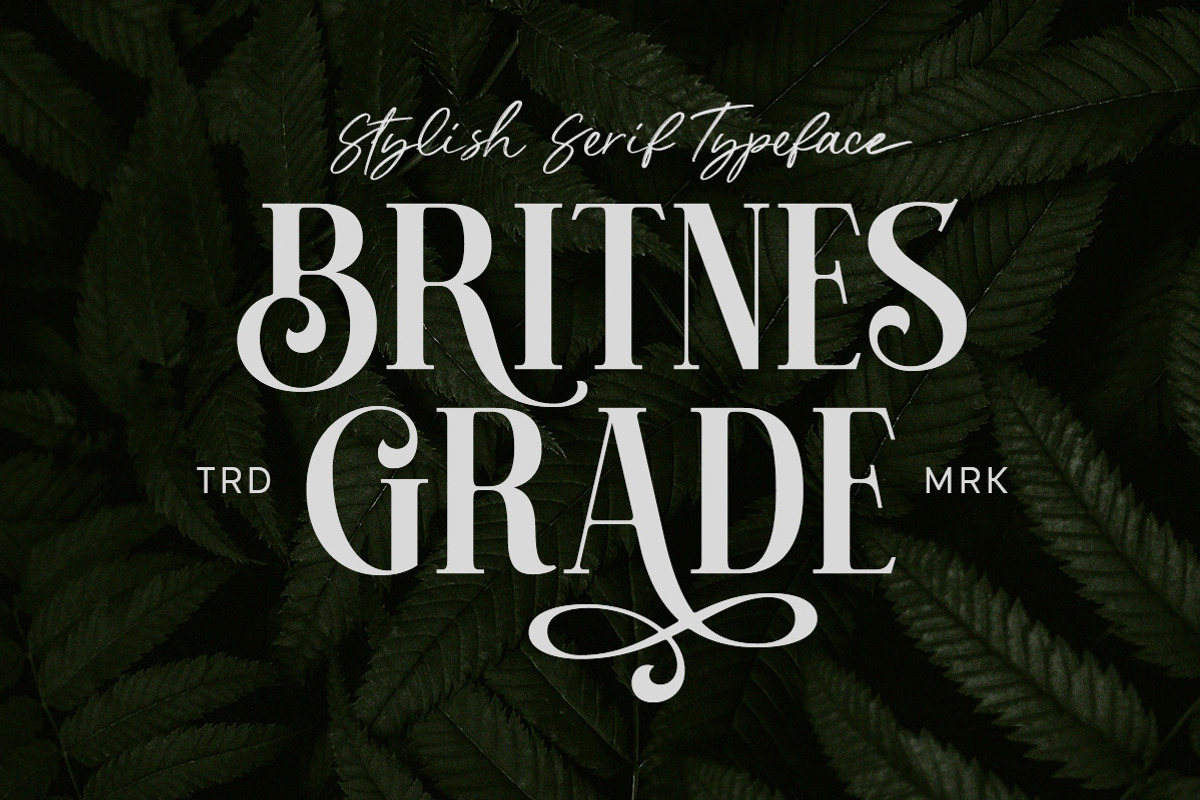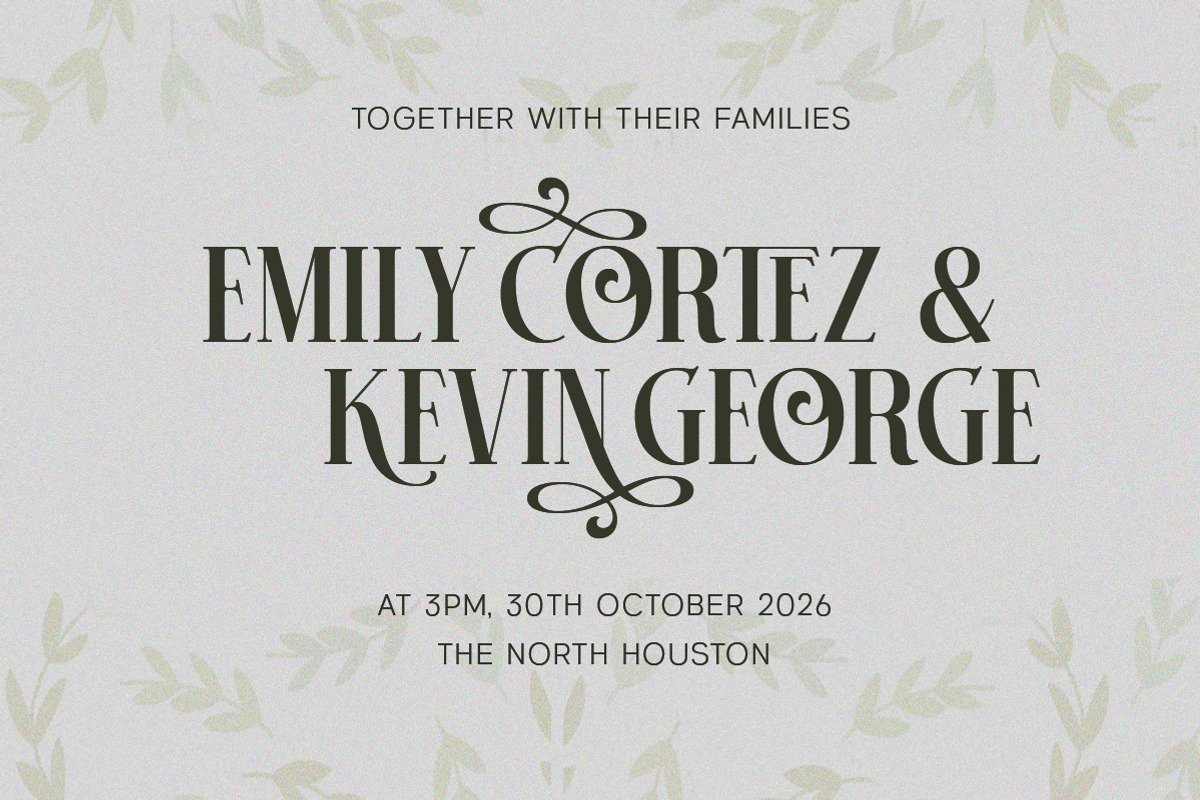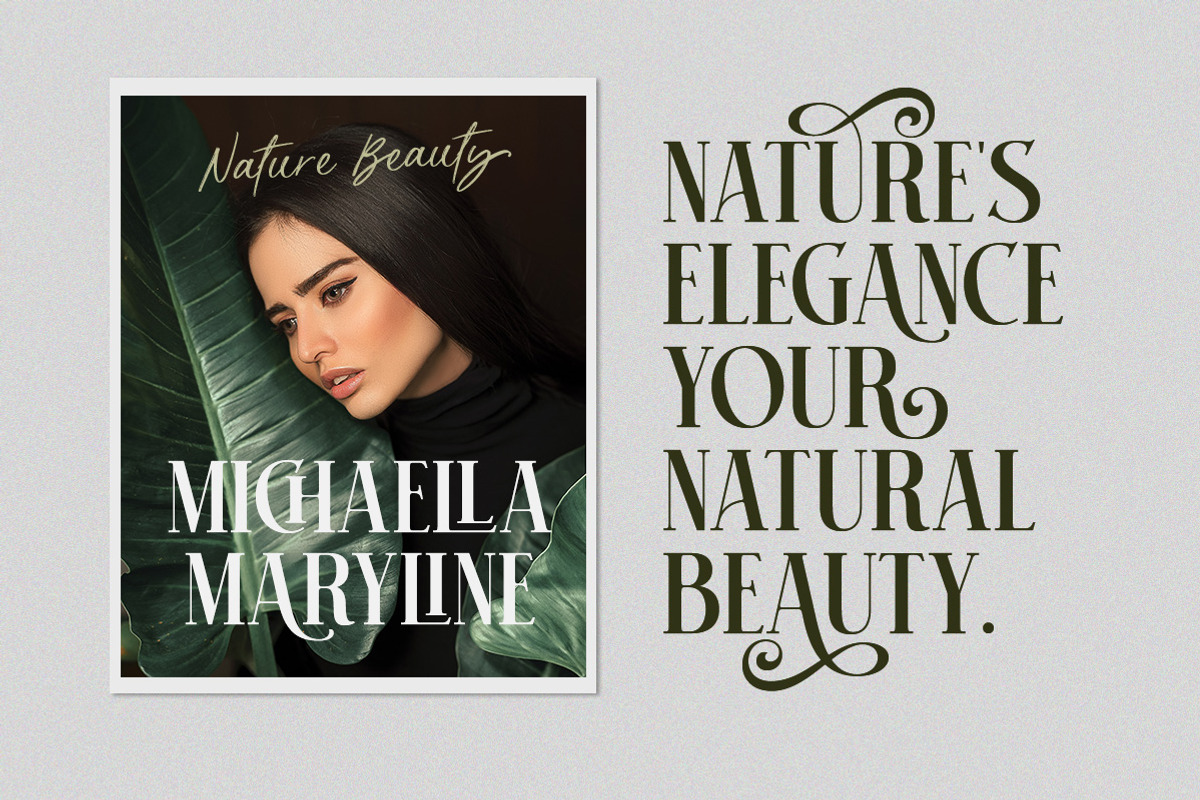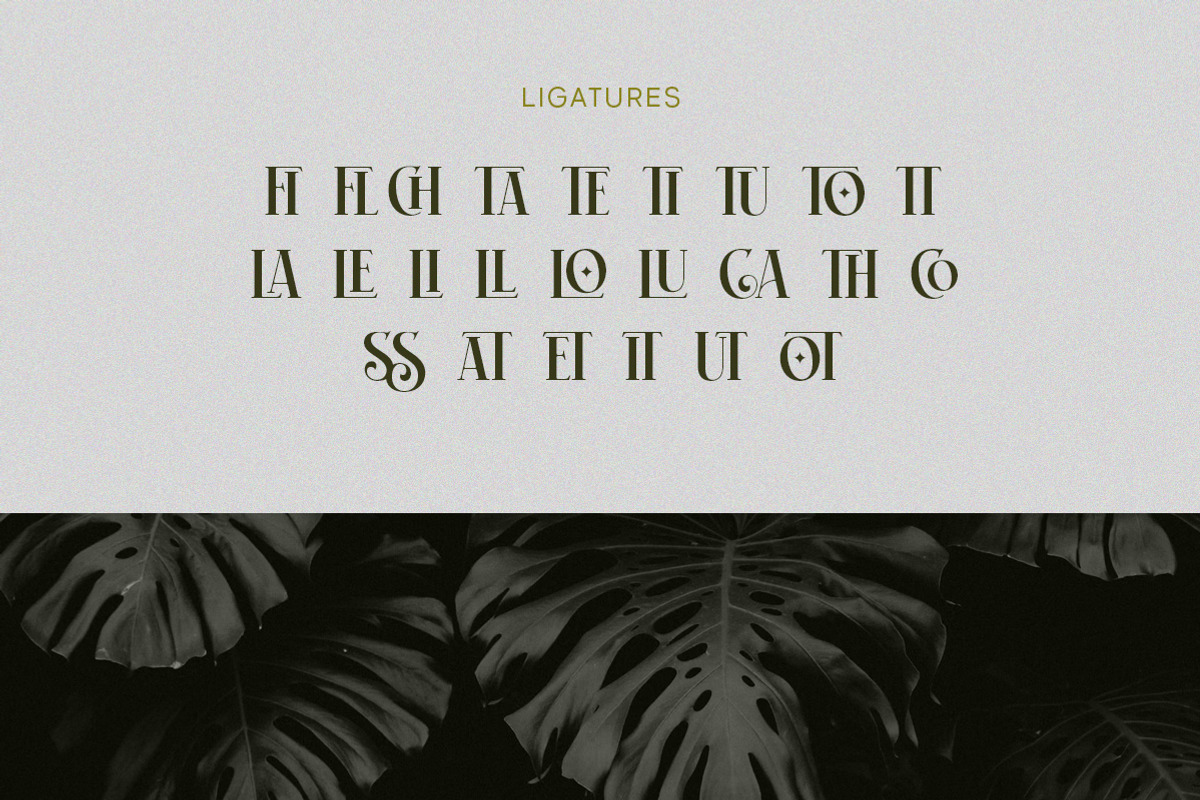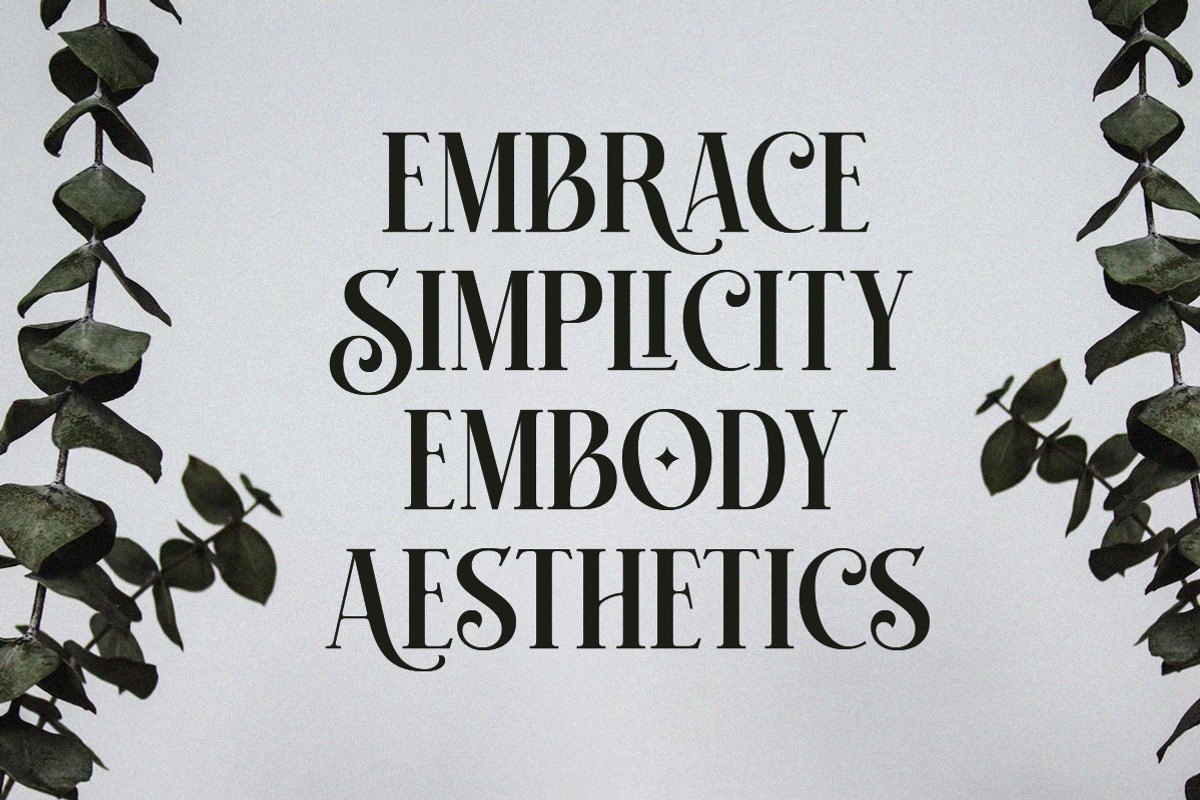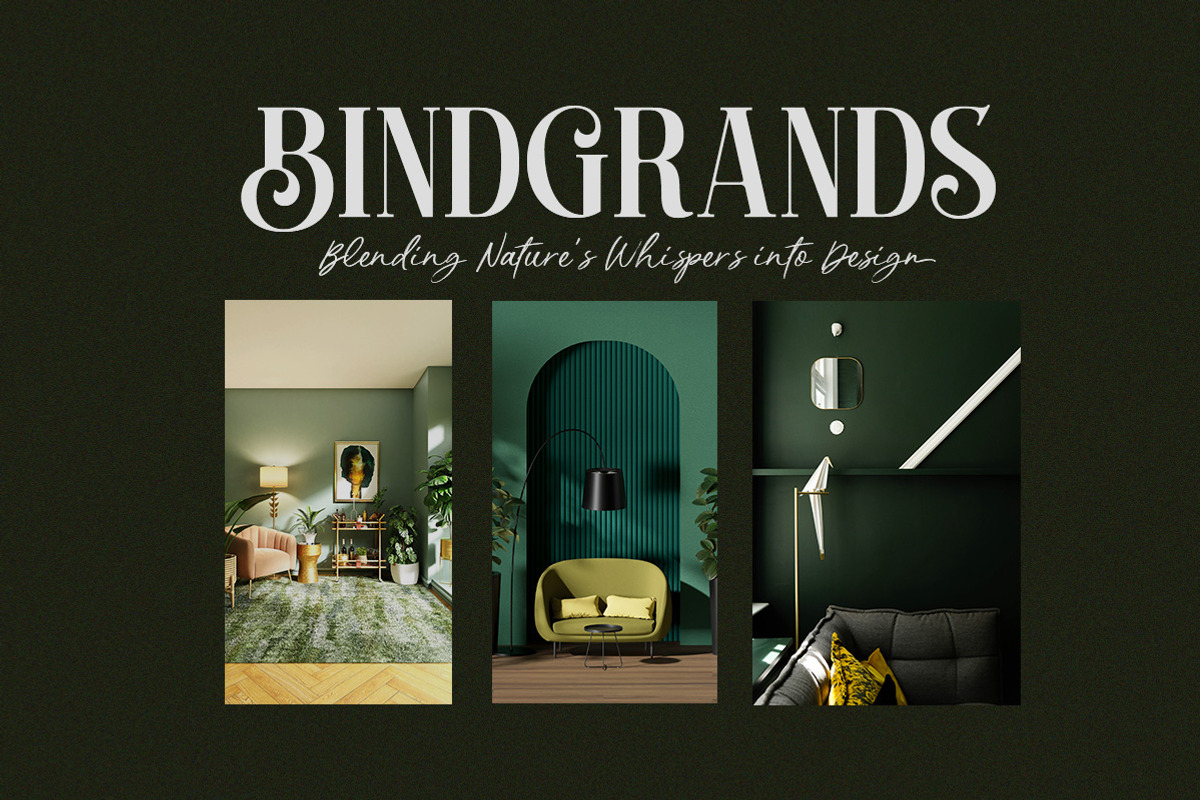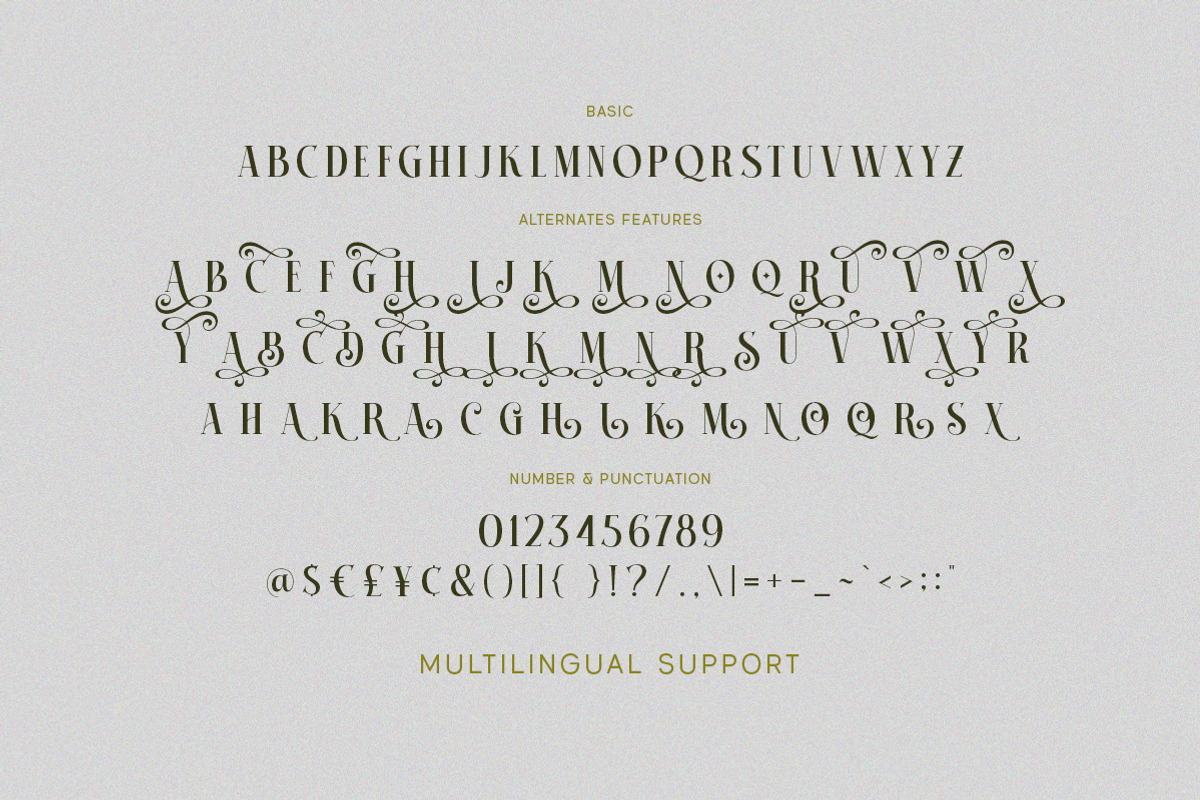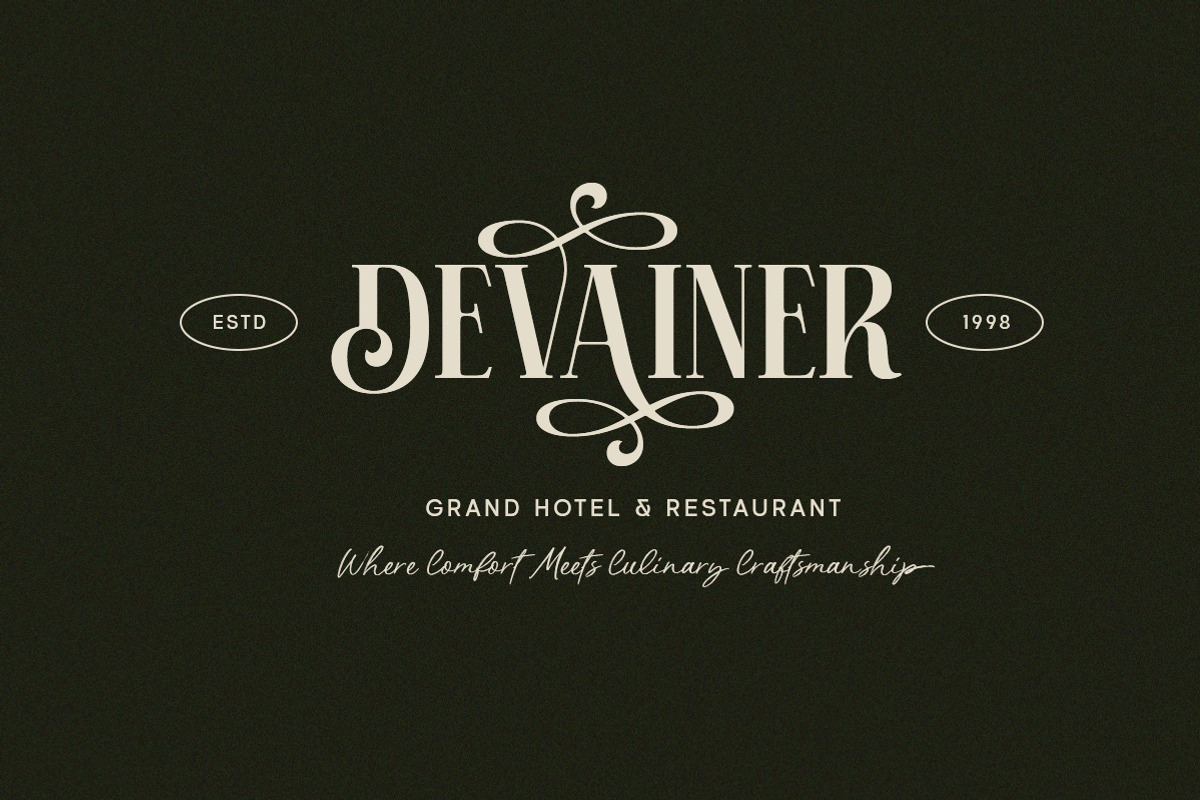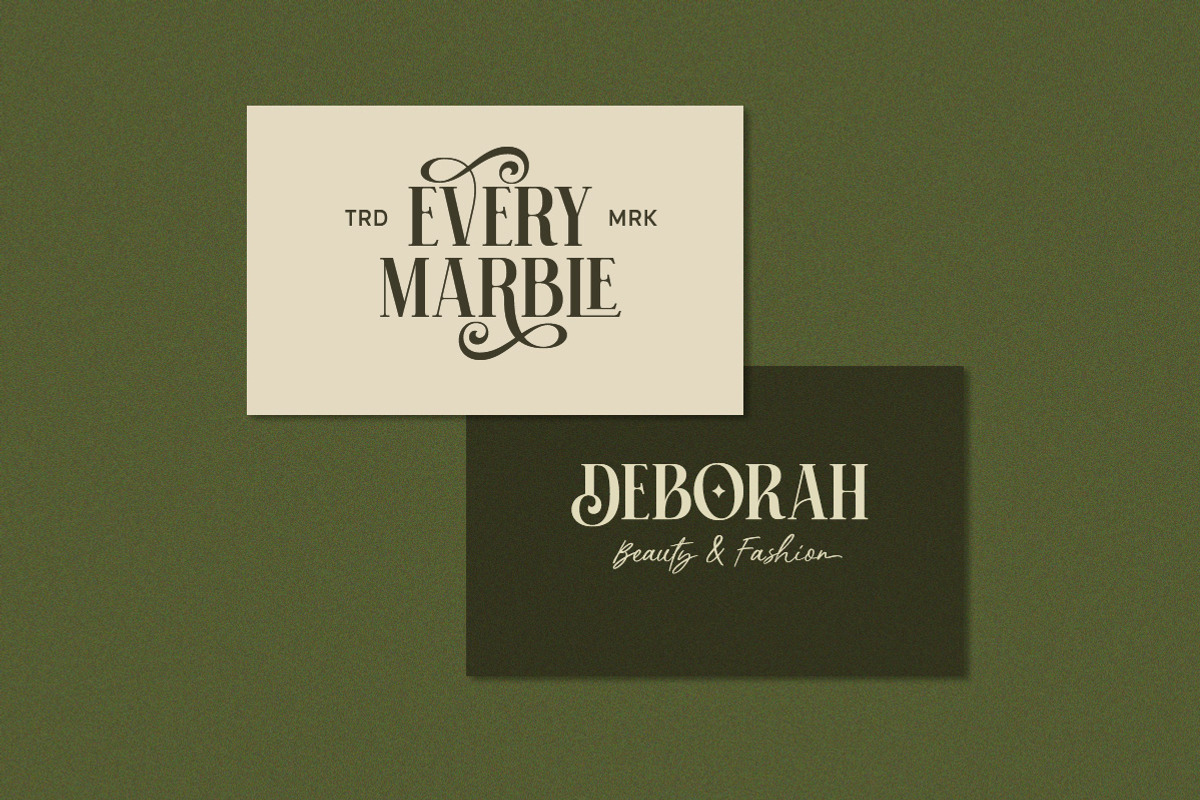
Britnes Grade - Stylish Serif
Introducing our newest typeface called Britnes Grade - A Stylish Serif. he clean and neat of a serif combined with the swirl swashes makes this font one of a kind!
This font perfectly made to be applied especially in logo, and the other various formal forms such as invitations, labels, logos, magazines, books, greeting / wedding cards, packaging, fashion, make up, stationery, novels, labels or any type of advertising purpose.